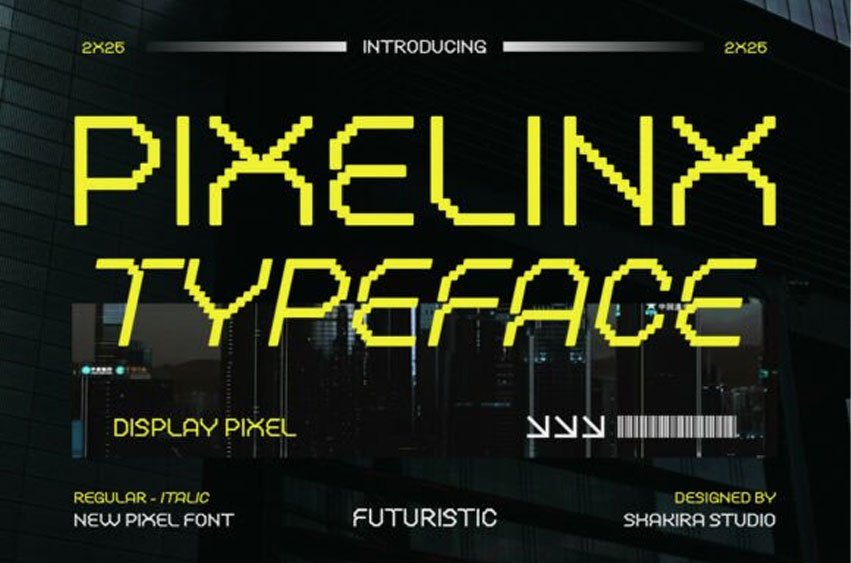
Pixelinx Font is a futuristic pixel display font crafted for digital-era creatives.
Designed with pixel-perfect precision, this typeface blends retro gaming vibes with modern tech energy, making it ideal for UI design, esports branding, YouTube thumbnails, techwear fashion, or digital products that crave a cyberpunk edge.